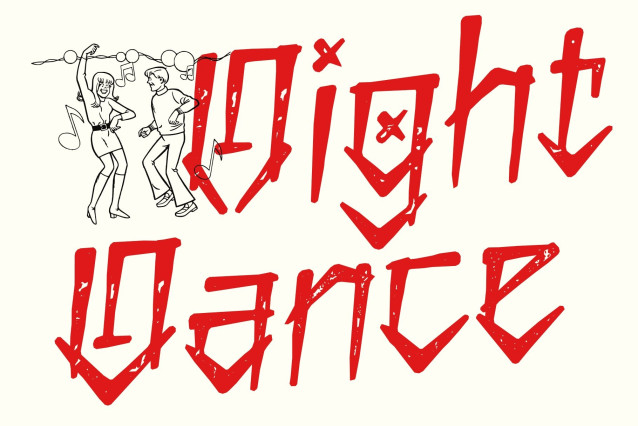
CS Decima Stamp Font
CS Decima Stamp – Graffiti Display with Vintage Street Texture
Urban Creativity and Rebellion
This is a bold graffiti display font that brings the raw, expressive energy of street art into your designs. Dynamic curves, irregular shapes, and exaggerated strokes capture the rebellious spirit of urban culture, making every word feel free, loud, and full of personality.
Expressive and Edgy Letterforms
Its bold and irregular construction creates a striking and energetic visual style. Inspired by authentic graffiti lettering, the font adds a rebellious and creative flair to posters, branding, and logos perfect for designs that need to stand out and leave a strong impression.